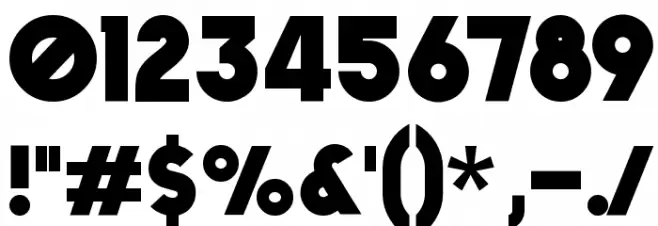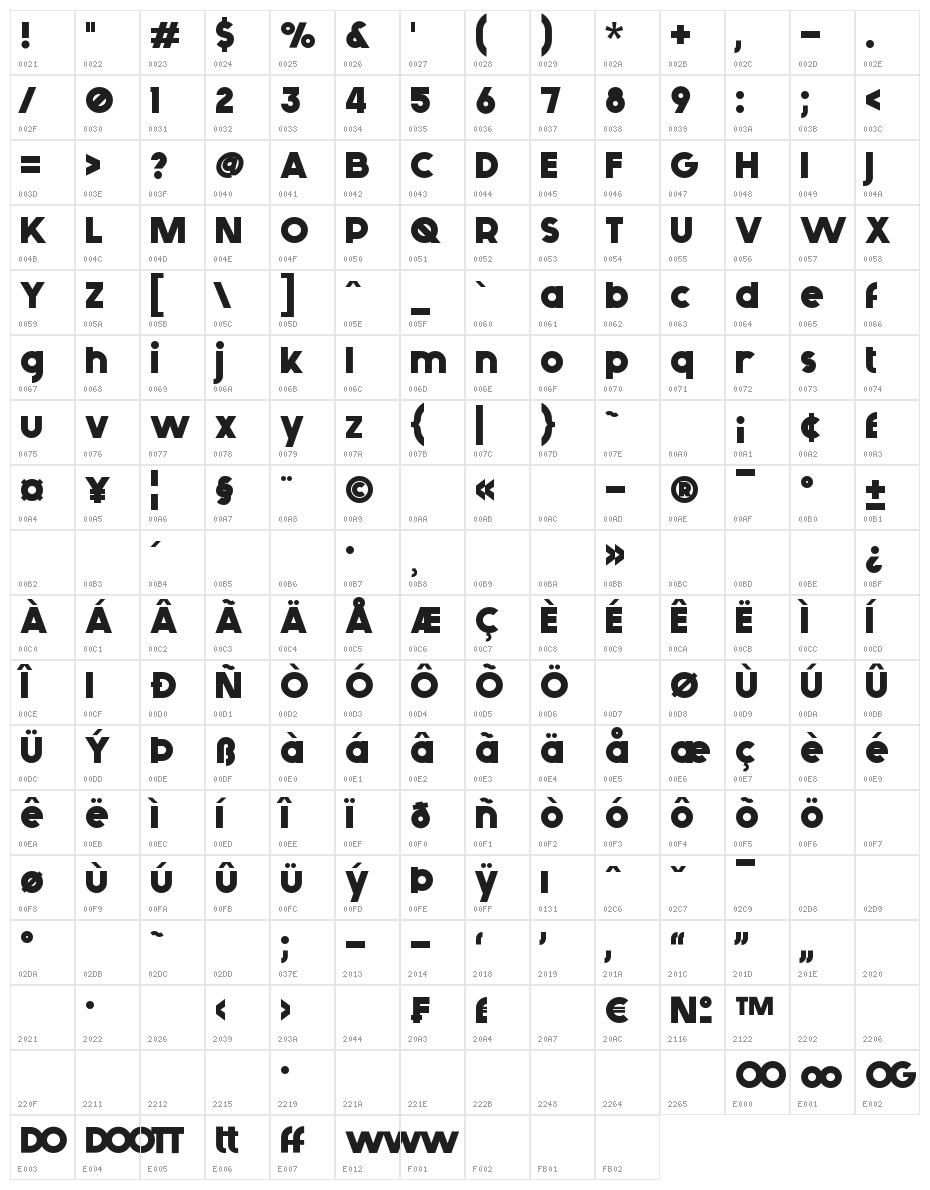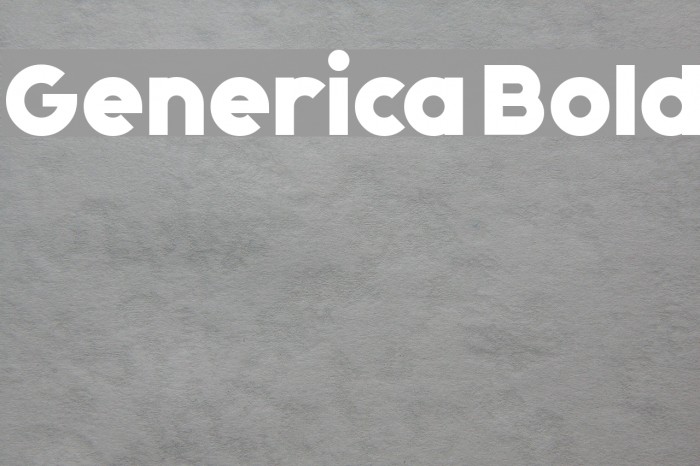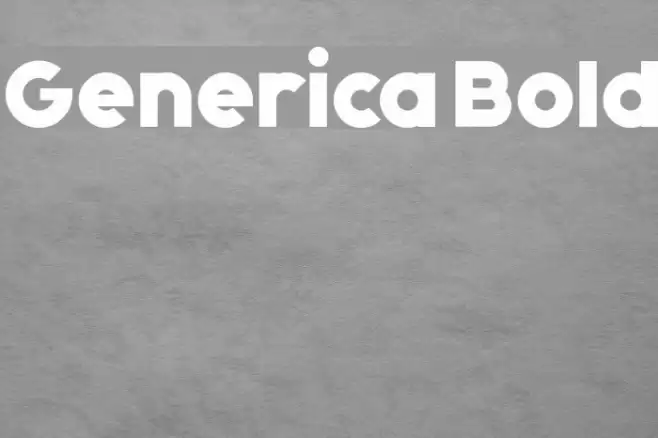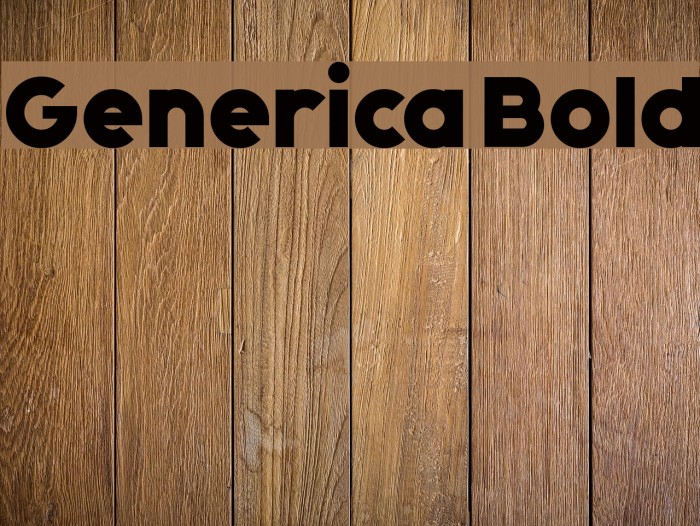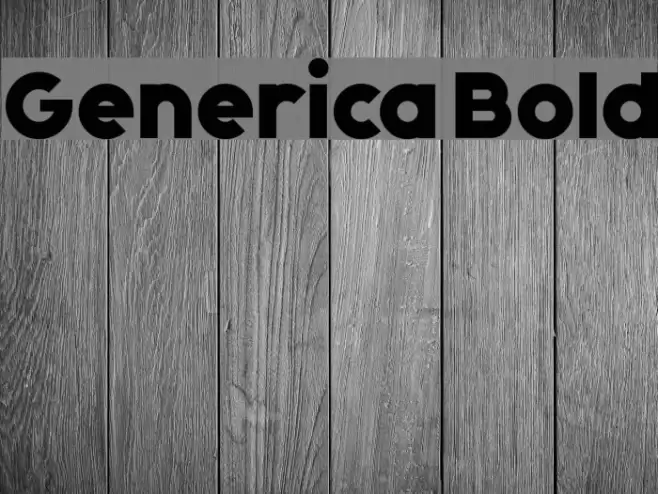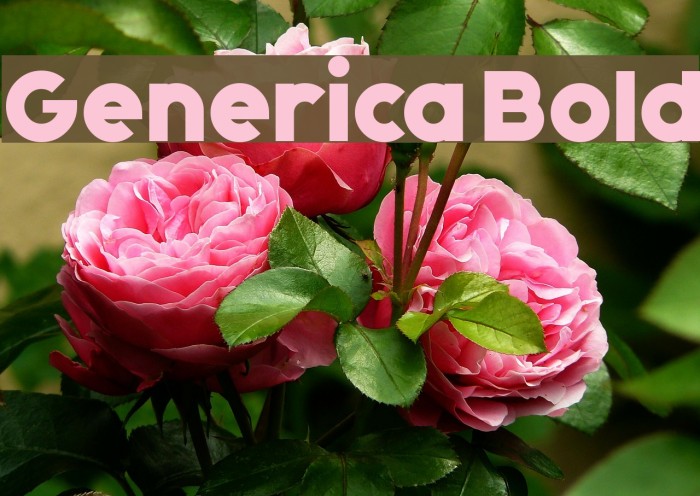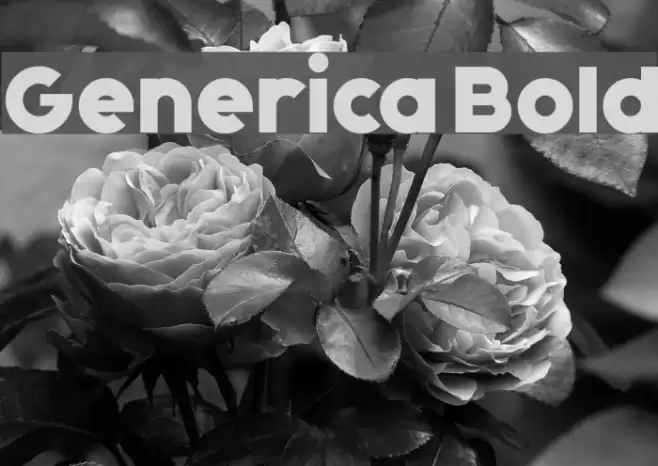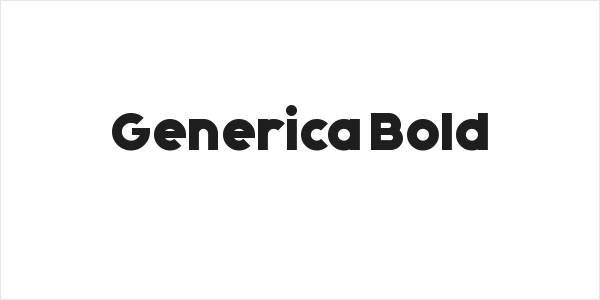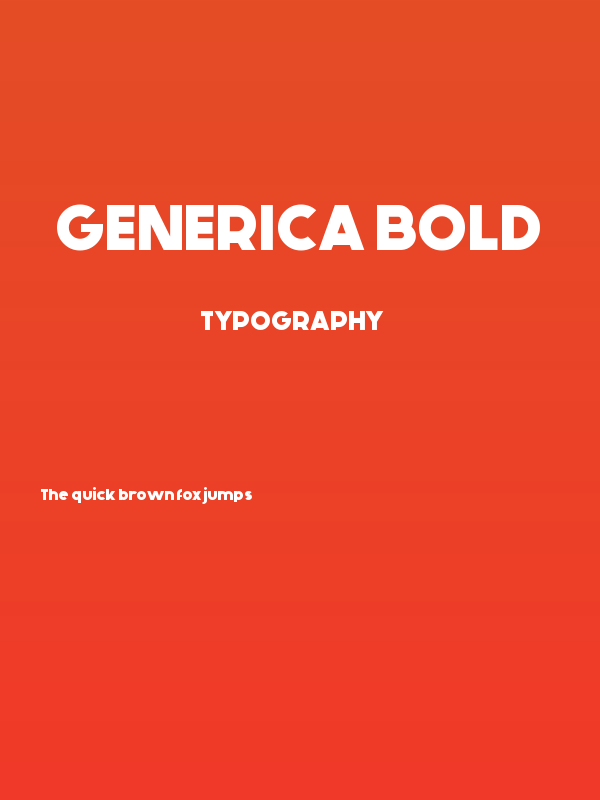
This bold and impactful font features strong, geometric shapes with a modern aesthetic. The uppercase and lowercase letters are well-balanced, offering a consistent and cohesive look across all characters. The numbers are clear and easy to read, maintaining the bold style of the alphabet. Special characters are distinct and match the overall design, making this font versatile for various uses. Its thick strokes and uniform weight give it a powerful presence, ideal for making statements. The font's design is clean and straightforward, focusing on readability and visual impact.
| Proposed Projects | Ideal for branding, advertising, headlines, posters, and any project requiring a strong visual impact. |